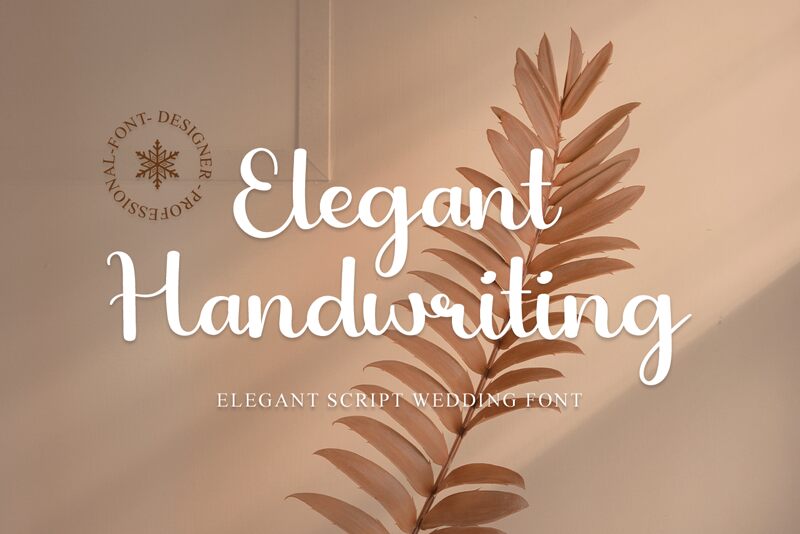
Elegant Handwriting
Elevate your projects with the sophisticated and refined Elegant Handwriting font. Designed by Fana Merah Jambu, this semi-light calligraphy font exudes elegance and grace. Perfect for invitations, branding projects, or any design that requires a touch of sophistication. This font's clean curves and flowing strokes create a smooth and polished appearance that will elevate any project to new heights. Use it for wedding invitations or greeting cards to add a personal touch, or incorporate it into your branding materials to give your business an air of class and sophistication. With Elegant Handwriting, the possibilities are endless!